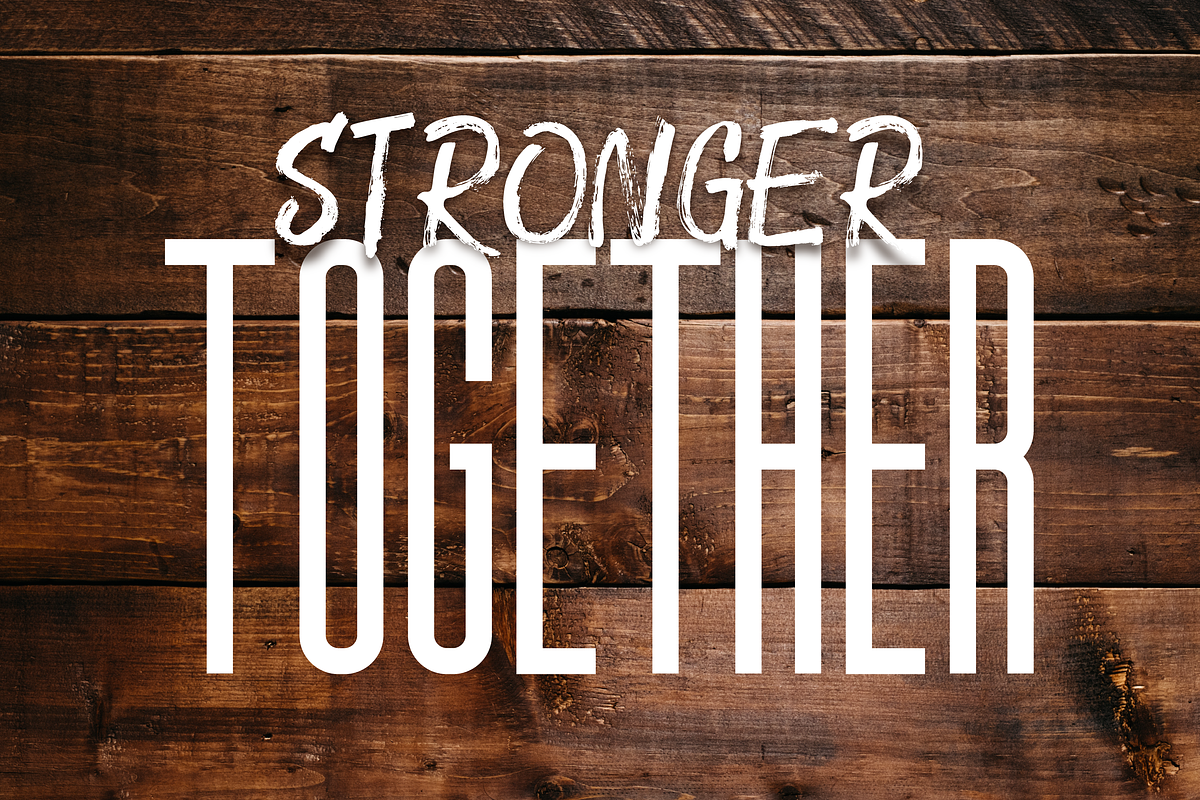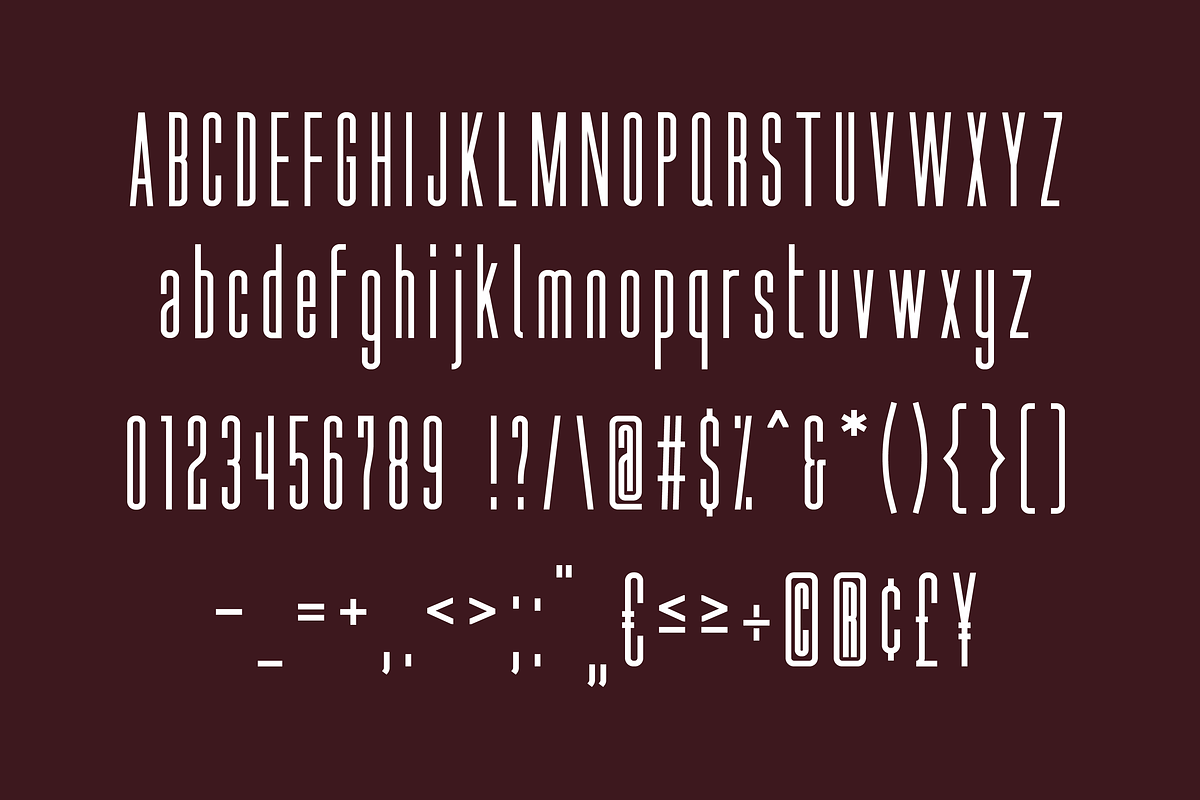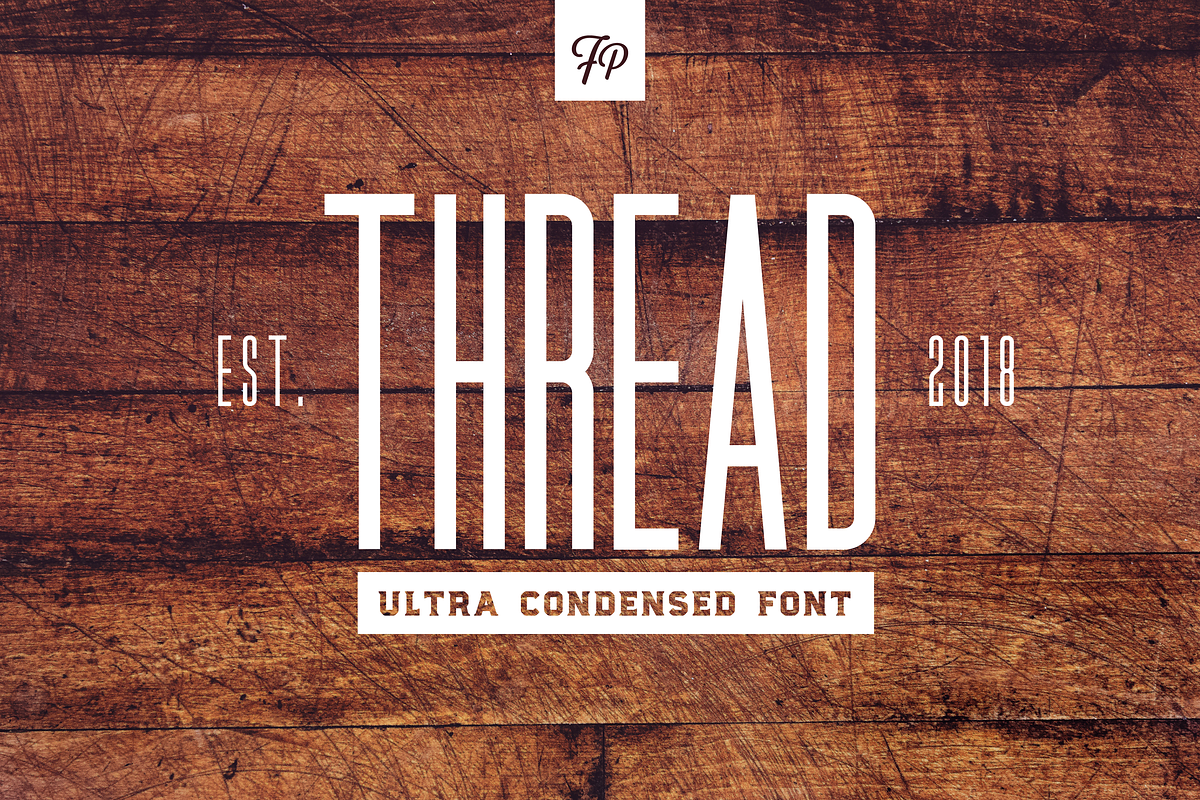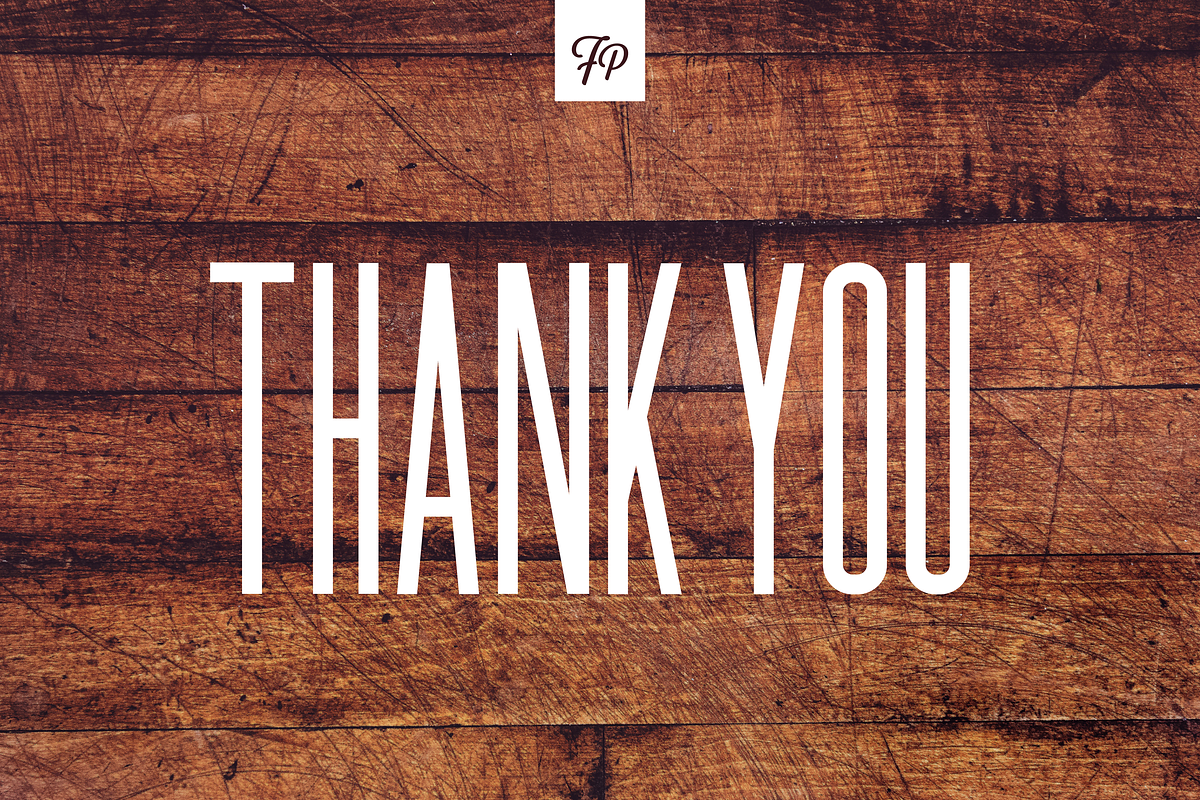
Thread - Ultra Condensed Font
Introducing Thread, an ultra condensed sans serif font from Fresh Pressed Fonts!
Thread is a condensed display font that's perfect for bold headers and any of your designs that require an exciting header or text element. It'll work great in a vertical layout as a bold element or it can be used more simply in a design. Thread comes in upper and lowercase as well as over 80 additional glyphs and symbols.
- Thread comes in upper and lowercase as well as over 80 additional glyphs and symbols.